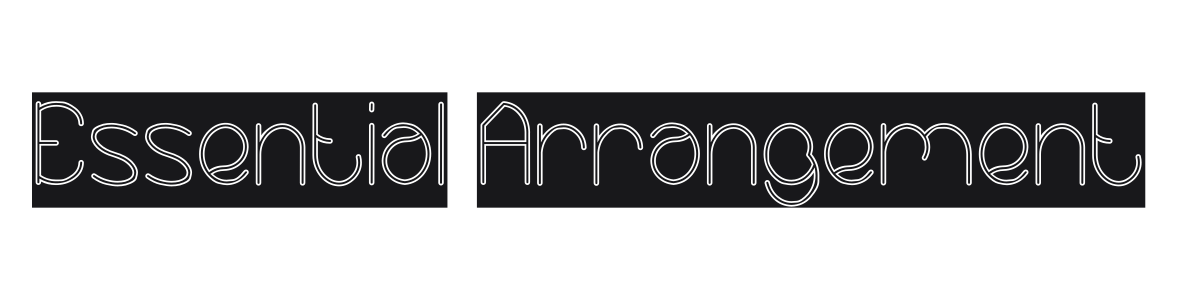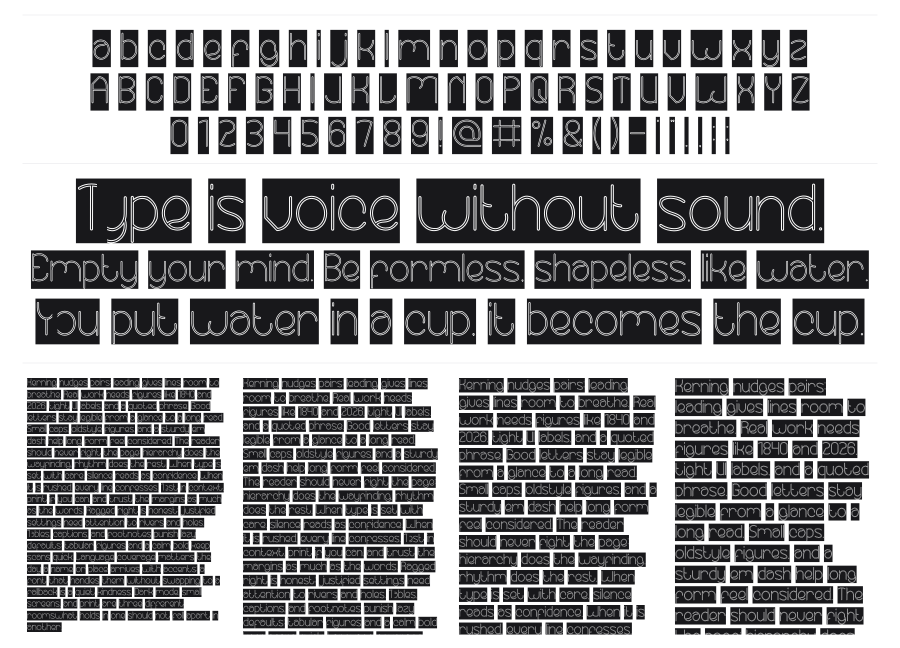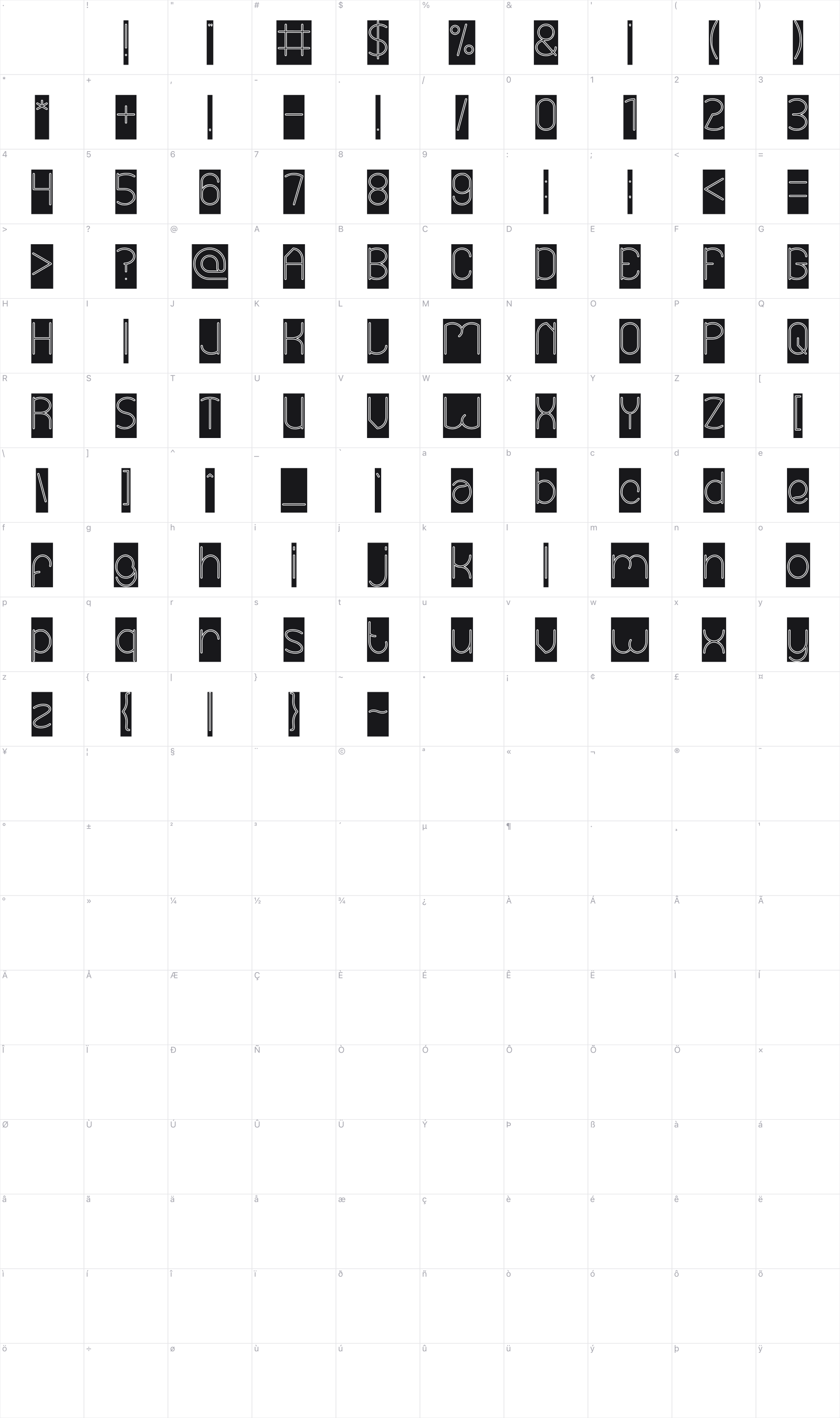
Essential Arrangement
Essential Arrangement is a rounded outline sans with a double-stroke construction that mimics the warm glow of neon signage. Every curve is soft and continuous, giving the characters a loose, 1970s groovy energy. It works best large, where the inline detail reads clearly against contrast backgrounds.